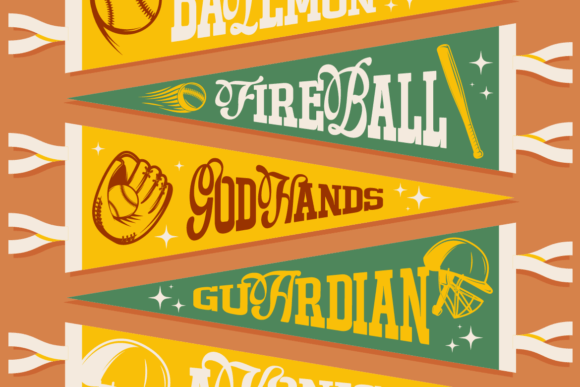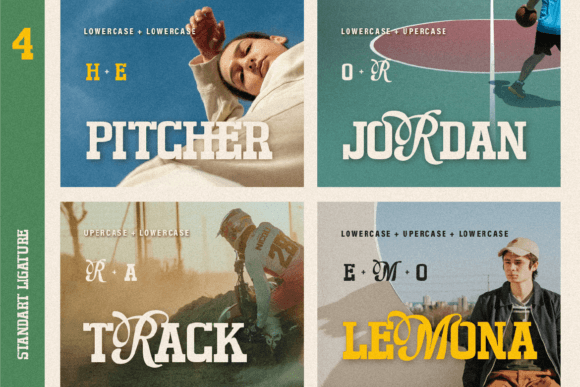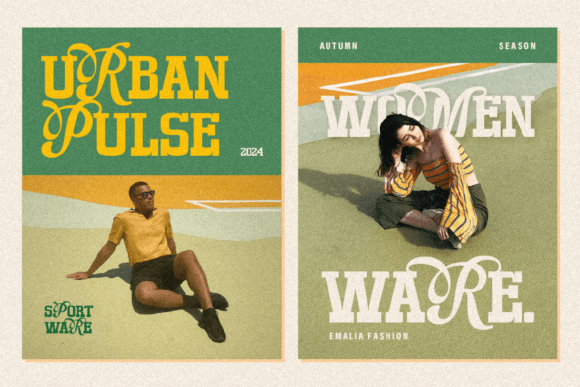
Introduction to Lemona Font
Have you ever found yourself stuck on a creative project, searching for the perfect font to elevate your design? The struggle is real, but we’re here to change that. As designers, we’re always on the lookout for high-quality fonts that can make our work stand out. That’s why we’re excited to introduce the Lemona Font, a game-changing typeface that combines the energy of athletic fonts with the elegance of script styles.
Imagine a font that can command attention, convey motivation, and add a touch of sophistication to your designs. That’s exactly what the Lemona Font offers. With its unique blend of strength and elegance, this font is perfect for sports branding, motivational posters, stylish apparel, and dynamic headlines. Whether you’re working on a print or digital project, the Lemona Font is sure to bring a fresh, modern twist to your design.
Key Features of Lemona Font
- High-quality design for creative projects, suitable for various applications including logos, titles, and headings.
- Designed with a modern and elegant aesthetic, making it an excellent choice for a wide range of creative projects.
Honest Review: Lemona Font
- ✨ Clean and modern design: The Lemona Font has a sleek and modern aesthetic that’s perfect for a wide range of creative projects.
- ✨ Wide range of weights: The font includes multiple weights and styles, making it versatile and easy to use in various design contexts.
- ⚠️ Limited character set: The Lemona Font is limited to the Latin character set, which may not be suitable for projects that require other languages.
- ⚠️ Not suitable for small text: The font’s design may not be ideal for small text sizes, as the letters may become difficult to read.
Overall, I think the Lemona Font is a great addition to any designer’s toolkit. Its high-quality design and versatility make it a valuable resource for creative projects. While it may have some limitations, I believe the benefits outweigh the drawbacks.
Lemona Font
The Lemona Font is a versatile design resource perfect for any creative project. With its high-quality typography and transparent background, it’s an excellent addition to your design toolkit.
For the best results, use the Lemona Font in combination with a high-quality image or background. Experiment with different font sizes and styles to create a unique look.
The Lemona Font is ideal for: